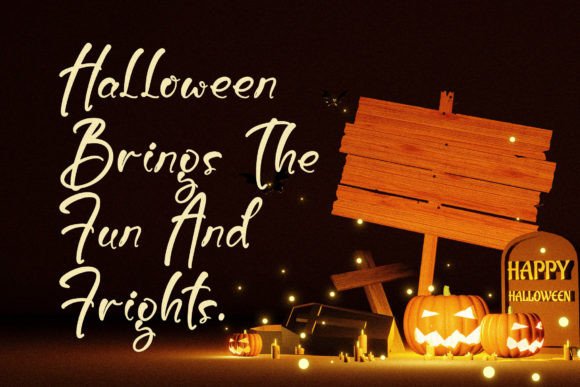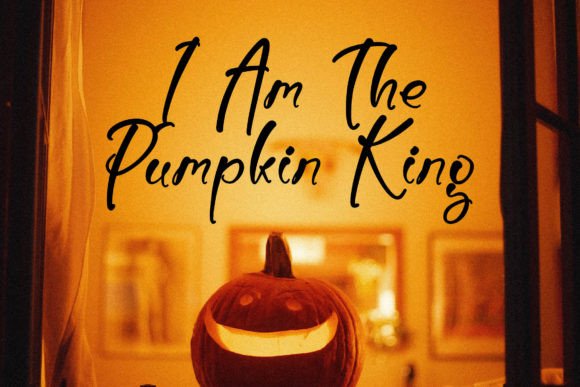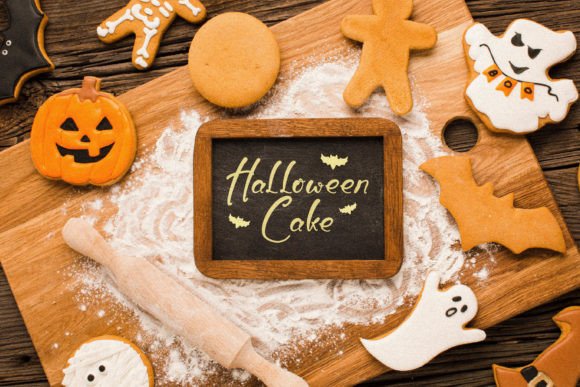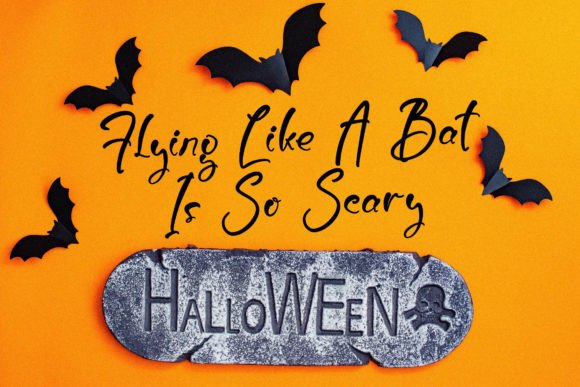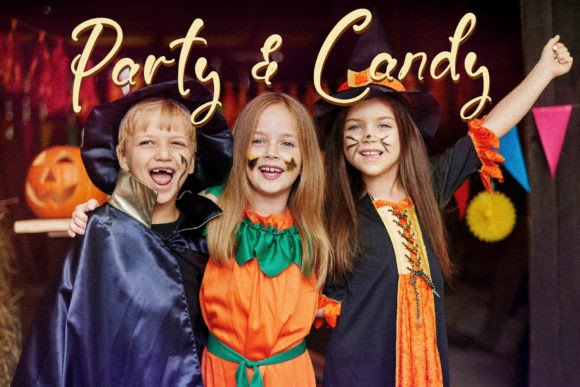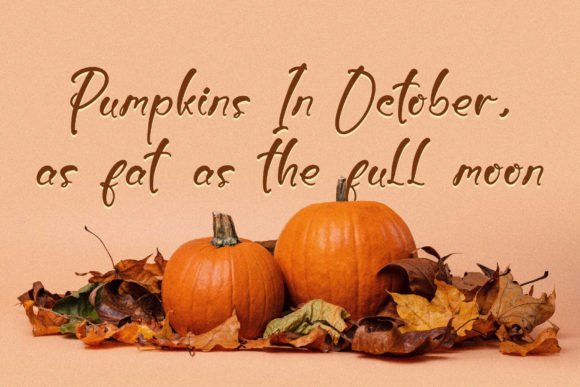
Introduction to Burtons Ghoster Font
Burtons Ghoster – Spooky Handwritten suitable for any projects such as logos, branding projects, homeware designs, product packaging, mugs, quotes, posters, shopping bags, t-shirts, book covers, name cards, invitation cards, greeting cards, labels, photography, watermark, special events, and all your other lovely projects that need a beautiful script taste.
Burtons Ghoster – Spooky Handwritten suitable for any projects such as logos, branding projects, homeware designs, product packaging, mugs, quotes, posters, shopping bags, t-shirts, book covers, name
Key Features of Burtons Ghoster Font
Why Choose Burtons Ghoster Font?
Burtons Ghoster Font offers exceptional quality and versatility, making it a valuable addition to your design toolkit. Whether you’re creating for personal projects or commercial use, Burtons Ghoster Font delivers professional results.